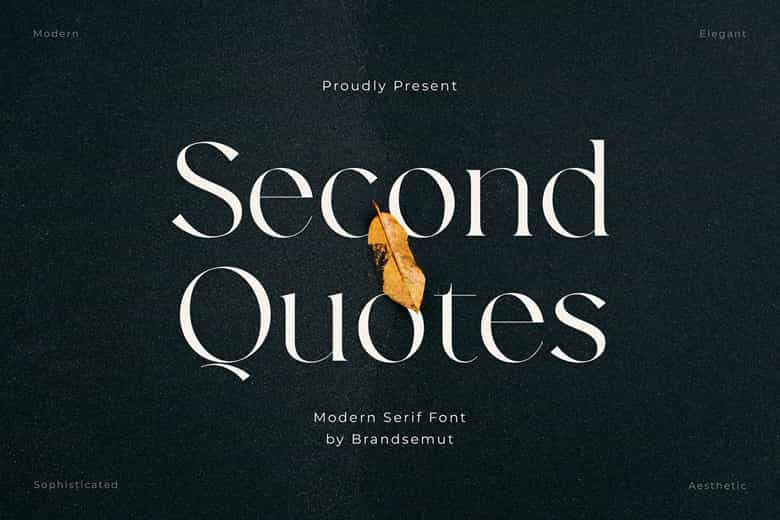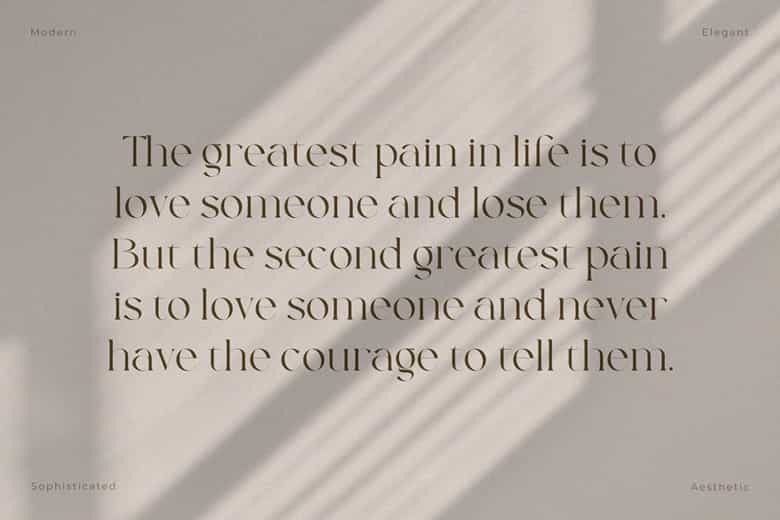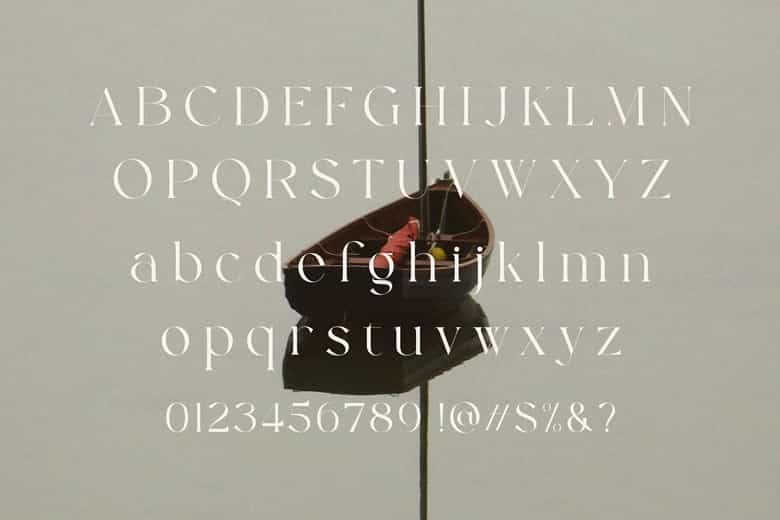
Second Quotes is contemporary, sleek serif typeface that combines simplicity with the touch of tradition. the font is clean yet old school has a strong touch of serifs alongside giving a modern touch, it would be perfect for quotes, branding and even neat designs.